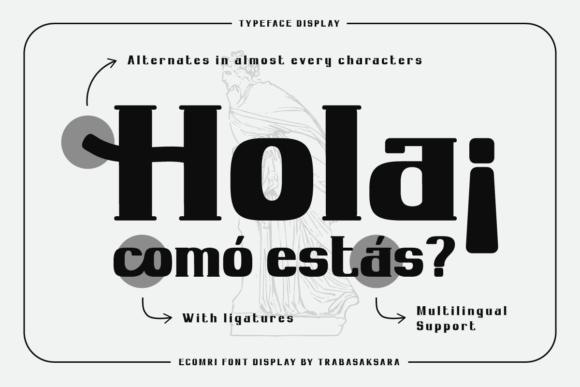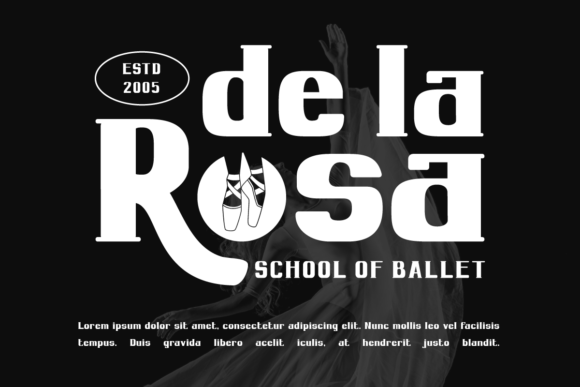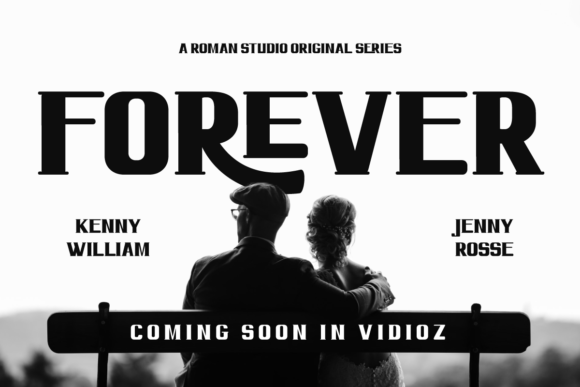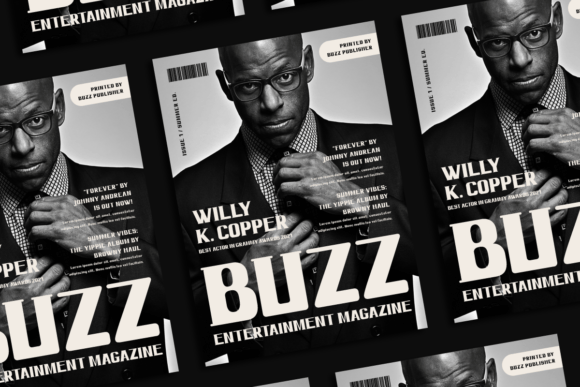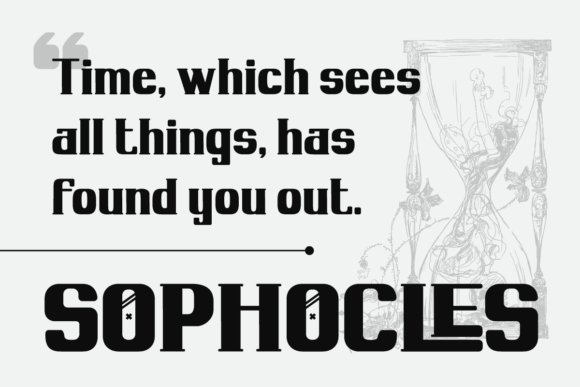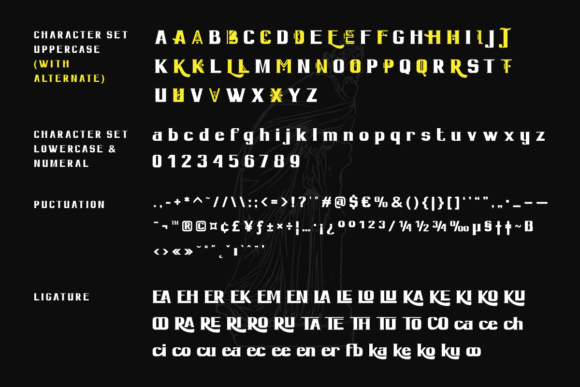
Introducing Ecomri: The Ultimate Font for Impactful Typography
In the world of design, typography plays a crucial role in capturing the attention of your audience and conveying your message effectively. With the numerous font options available, it can be challenging to find the perfect one that stands out from the crowd. However, we are excited to introduce Ecomri, a dynamic and attention-grabbing typeface that is set to revolutionize the way you approach typography.
The Perfect Blend of Modernity and Versatility
Ecomri boasts a modern and versatile design that makes it an ideal choice for designers and crafters seeking a unique and impactful typography solution. Its sleek lines, precise curves, and carefully crafted details come together to create a font that exudes confidence and sophistication. Whether you’re working on a branding project, website design, or marketing materials, Ecomri is the perfect companion to help you achieve your creative goals.
Key Features of Ecomri Font
- Modern Design: Ecomri’s contemporary design ensures that your typography stands out in a crowded digital landscape.
- Versatile: The font’s adaptability makes it suitable for various design projects, from logos and headings to body text and more.
- Attention-Grabbing: Ecomri’s unique style is designed to capture attention and leave a lasting impression on your audience.
- Legible: The font’s clarity and precision ensure that your message is conveyed effectively, even at smaller font sizes.
Why Choose Ecomri Font?
With so many fonts available, why should you choose Ecomri? Here are a few compelling reasons:
- Uniqueness: Ecomri’s distinct design sets it apart from more traditional fonts, allowing you to create memorable and impactful designs.
- Brand Differentiation: By using Ecomri, you can create a visual identity that differentiates your brand from competitors and resonates with your target audience.
- Flexibility: The font’s versatility means you can use it across various design projects, from digital platforms to print materials.
- Easy to Use: Ecomri is designed to be user-friendly, making it easy to integrate into your design workflow.
Ecomri Font in Design Applications
Ecomri’s adaptability makes it an excellent choice for various design applications, including:
- Branding: Create a lasting impression with Ecomri’s bold and attention-grabbing style, perfect for logos, business cards, and letterheads.
- Web Design: Enhance your website’s typography with Ecomri’s clean and legible design, ensuring a seamless user experience.
- Marketing Materials: Make your marketing materials stand out with Ecomri’s unique style, ideal for brochures, flyers, and social media graphics.
- Packaging: Add a touch of sophistication to your product packaging with Ecomri’s modern and versatile design.
| Font Name | Ecomri Font |
| Author | trabas_kriya |
In conclusion, Ecomri is a game-changing font that offers a perfect blend of modernity, versatility, and impact. Its unique design, attention-grabbing style, and adaptability make it an excellent choice for designers and crafters seeking to elevate their typography. With Ecomri, you can create memorable and effective designs that resonate with your audience and set your brand apart from the competition.